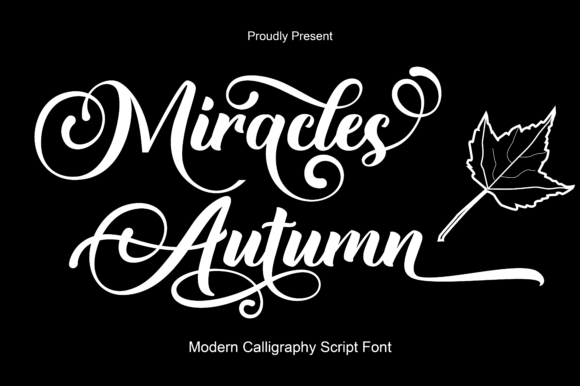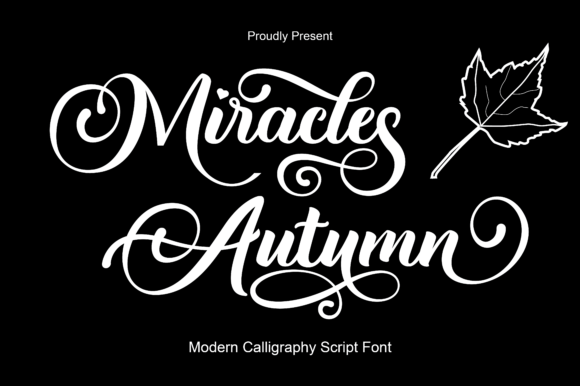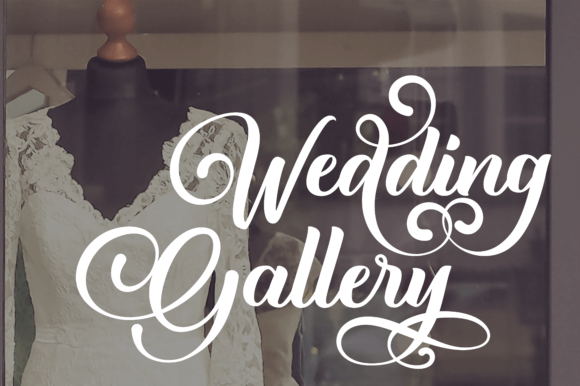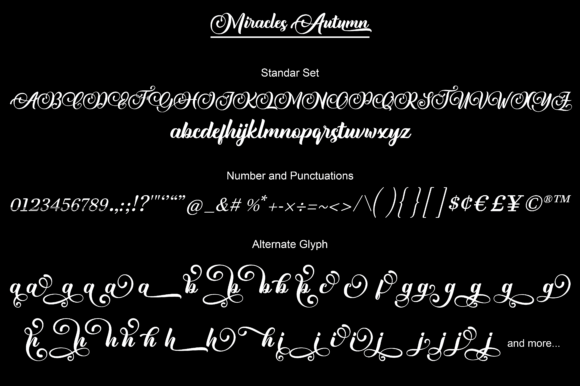
Miracles Autumn Font
About the Miracles Autumn Font
The Miracles Autumn Font offers a perfect balance of form and function for your design needs. Miracles Autumn is a romantic and sweet calligraphy typeface with characters that dance along the baseline. It will add a luxury spark to any design project that you wish to create! This font is PUA encoded which means you can access all of the amazing glyphs and ligatures with ease!
Miracles Autumn’s elegant and romantic style is ideally suited for projects requiring a touch of luxury and sophistication. It excels in short headlines, logos, wedding invitations, and other applications where its delicate flourishes can be showcased. Avoid using it for body text or lengthy paragraphs; its decorative nature makes it less legible at smaller sizes.
Its inherent sweetness pairs well with clean sans-serif fonts like Lato or Montserrat for a balanced contrast, or with a geometric sans-serif for a modern feel. For a more traditional approach, consider pairing it with a classic serif like Garamond or a simple script font for enhanced visual harmony.
The overall personality is undeniably romantic and charming, conveying a sense of warmth and delicate beauty. This makes it a perfect choice for brands associated with femininity, handcrafted products, or businesses emphasizing a personal touch.